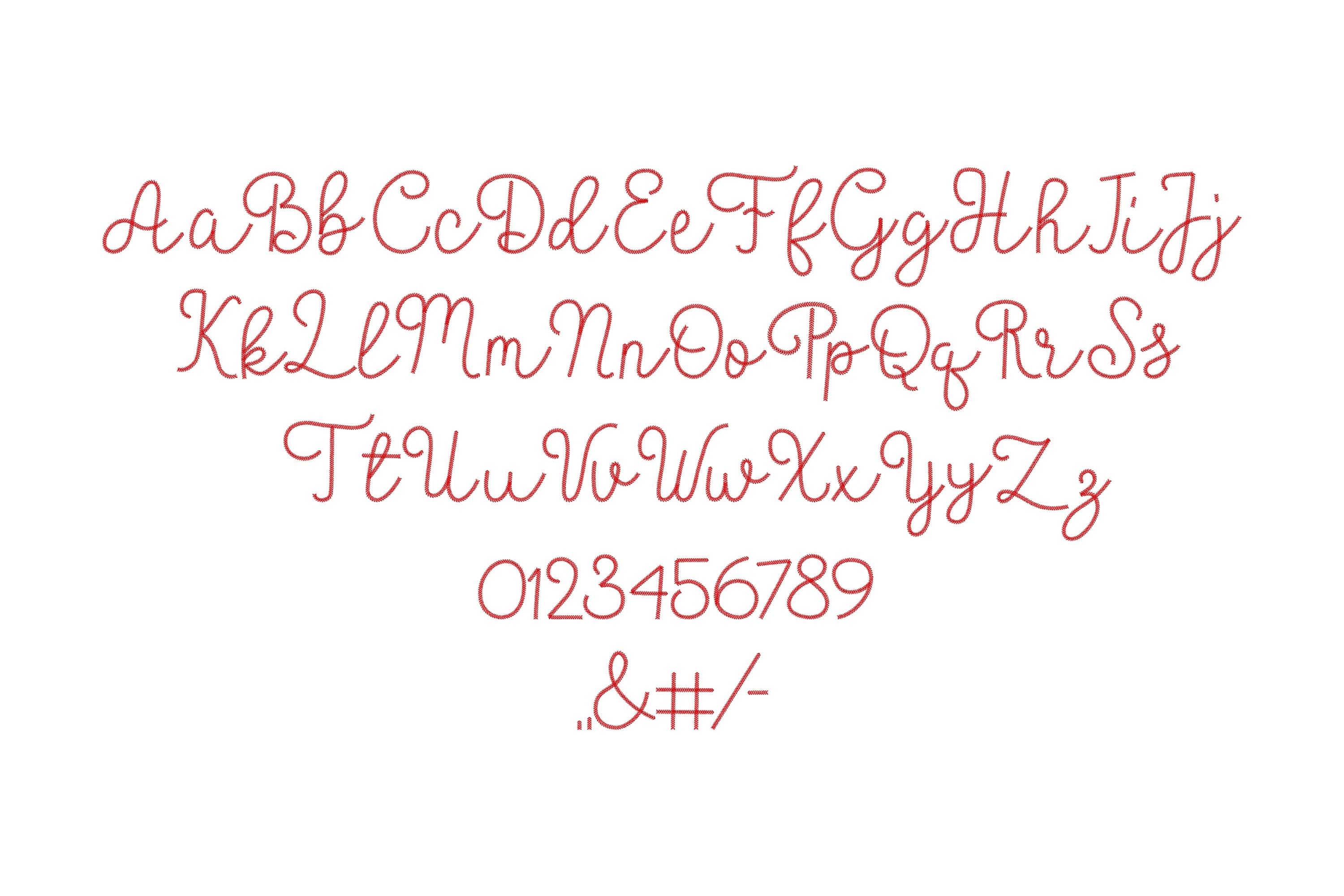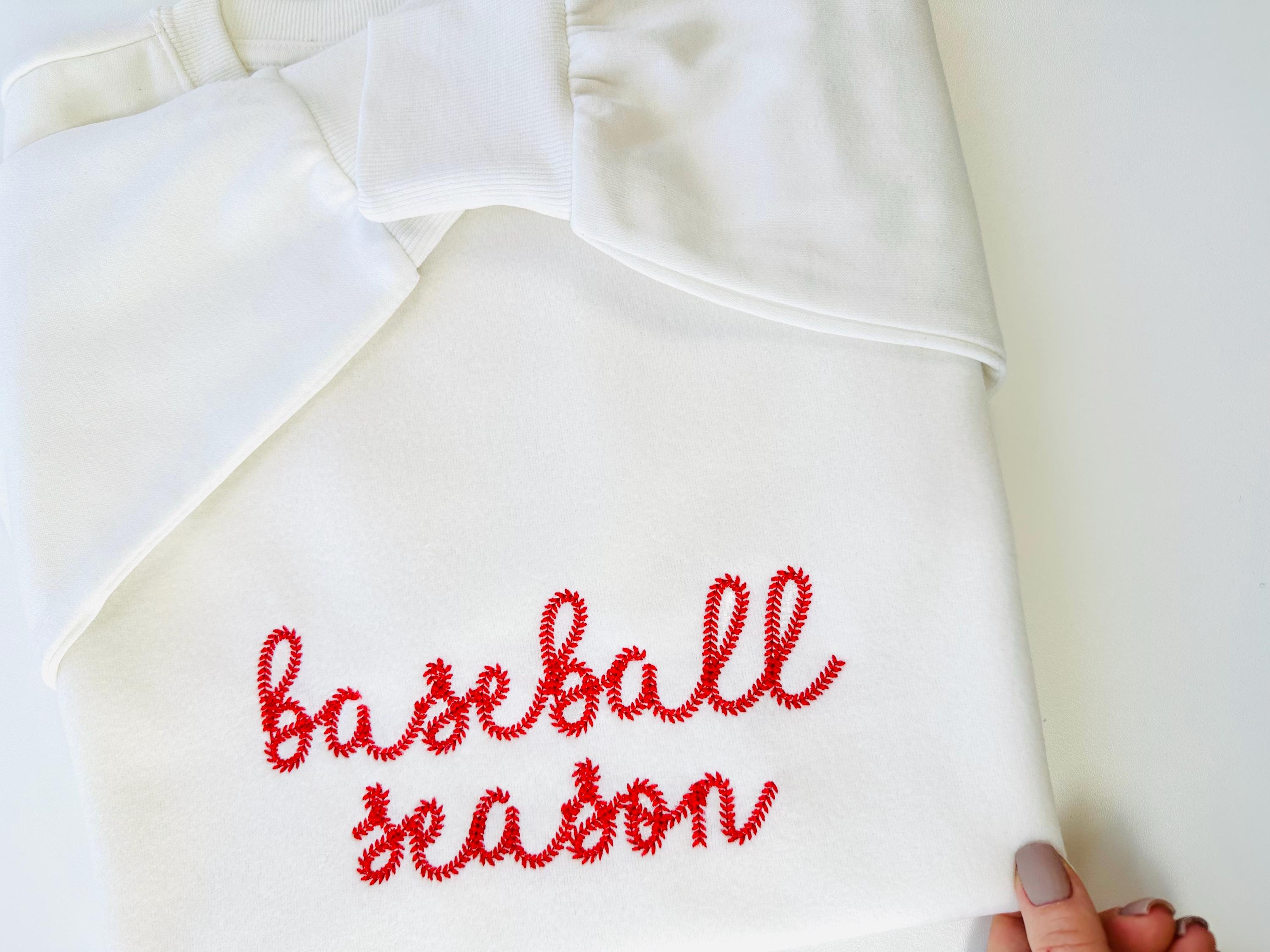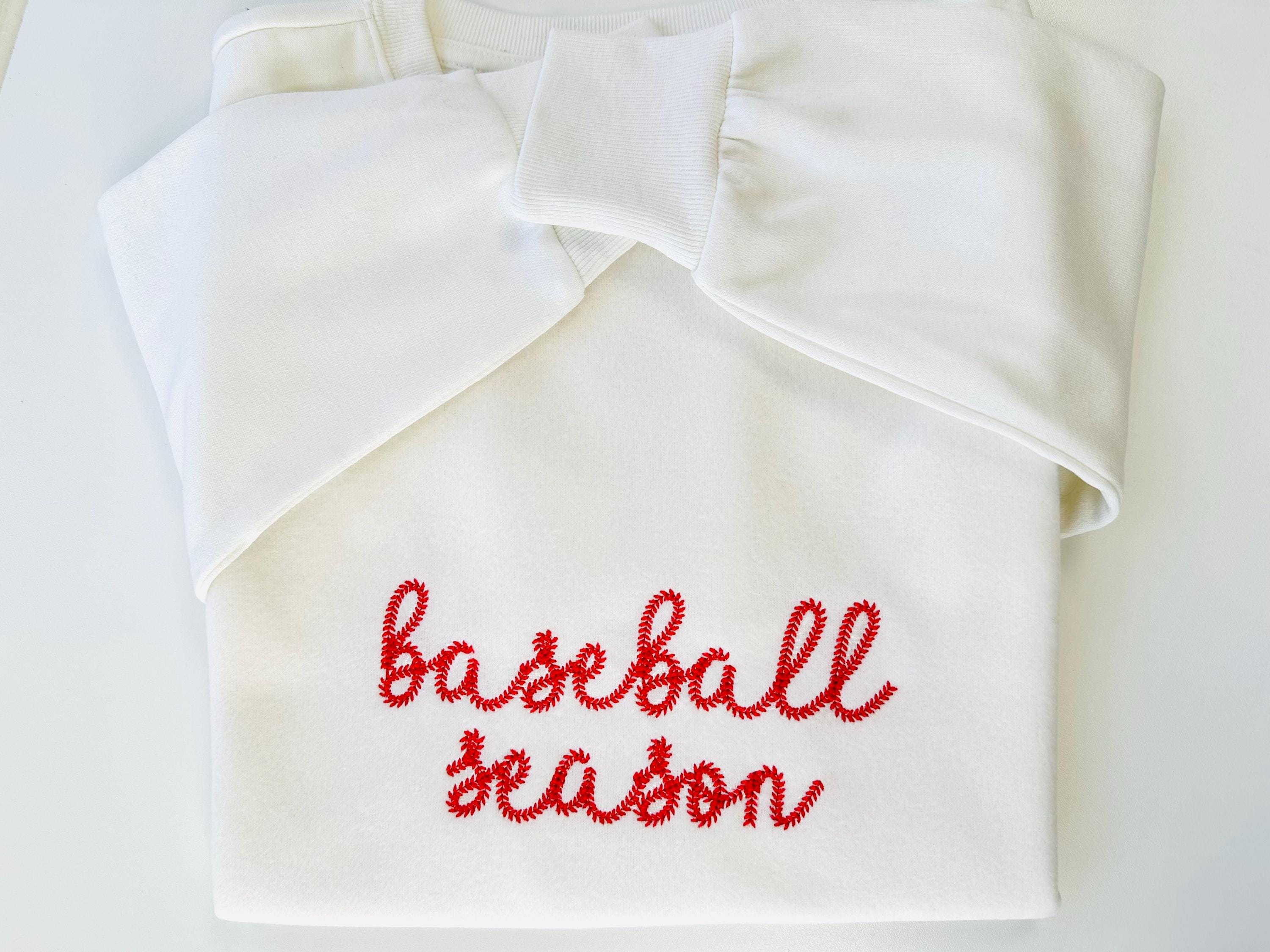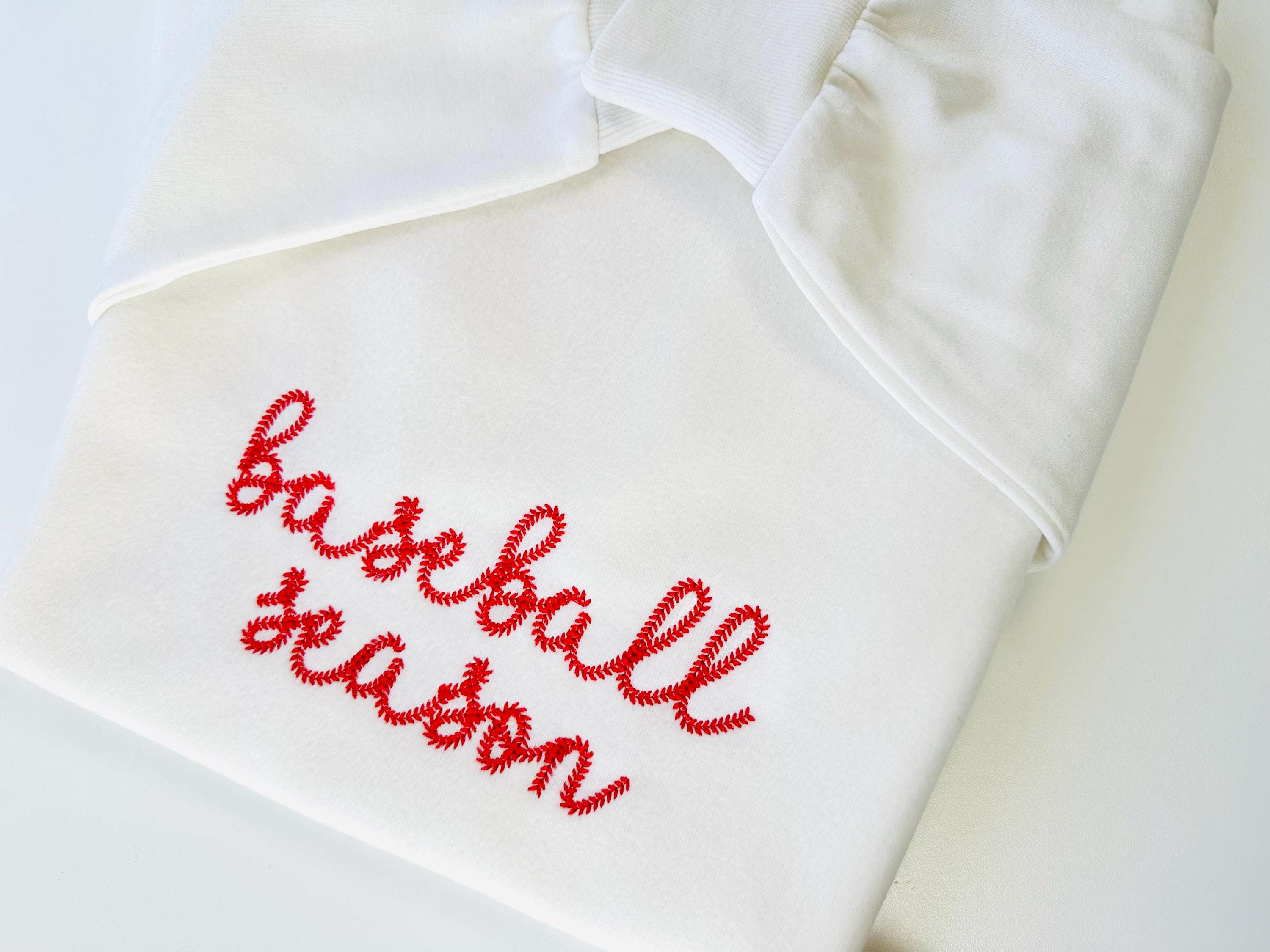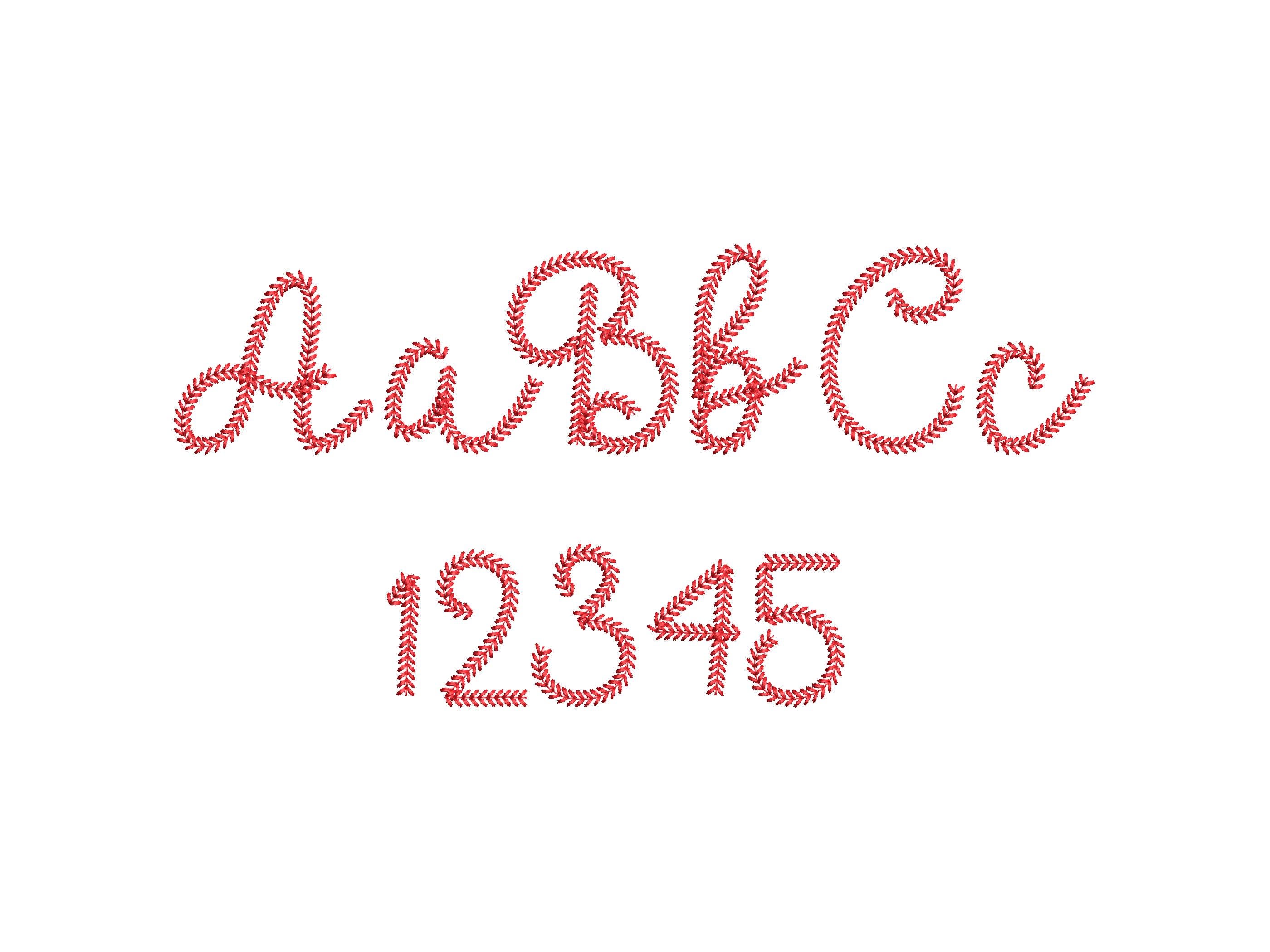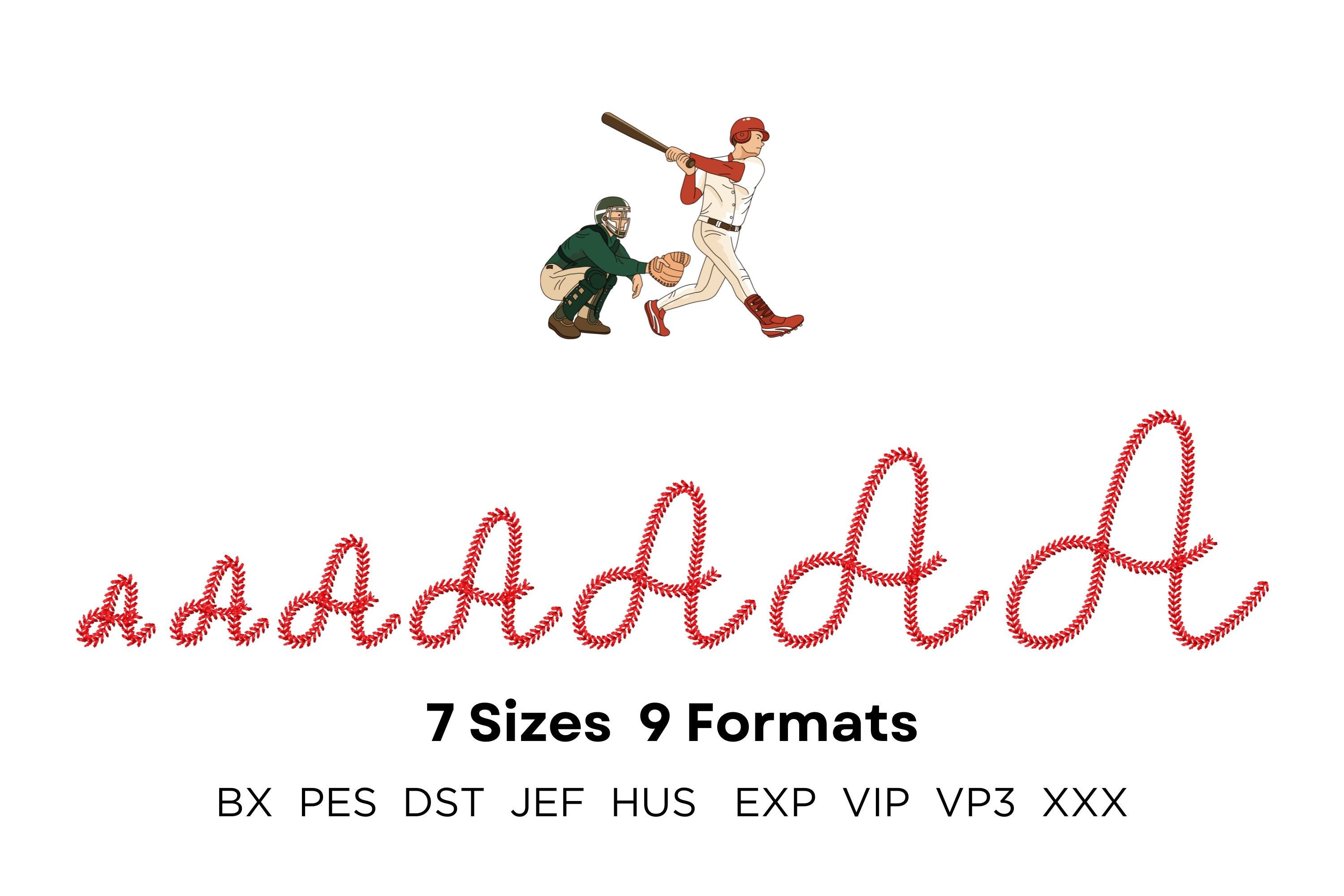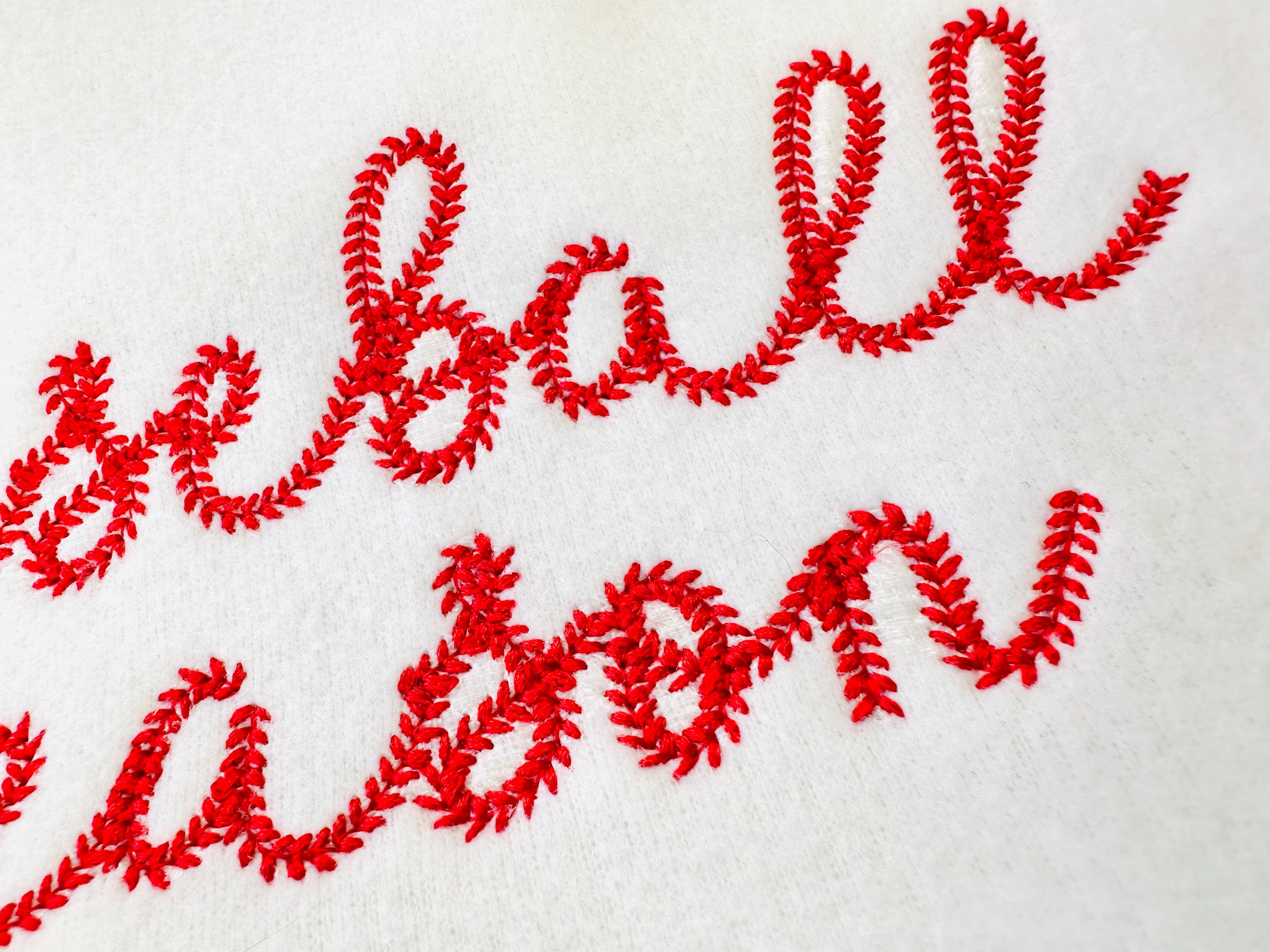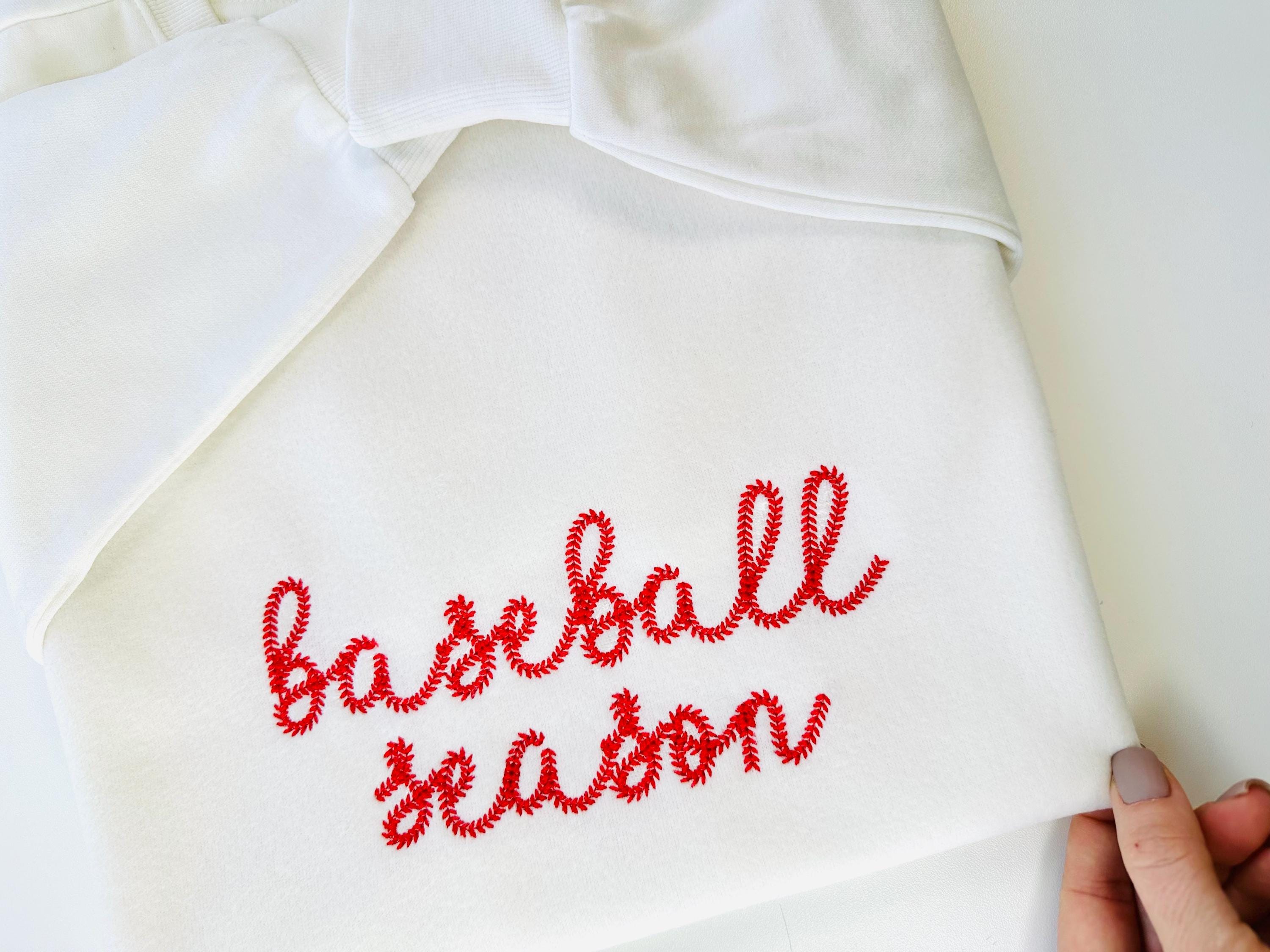
NEW! Baseball stitch FONT sports softball handwritten font script alphabet letters machine embroidery designs multiple sizes 1 up to 3.4 inches
Entire alphabet uppercase and lowercase letters Aa-Zz, numbers 0-9, and punctuation.